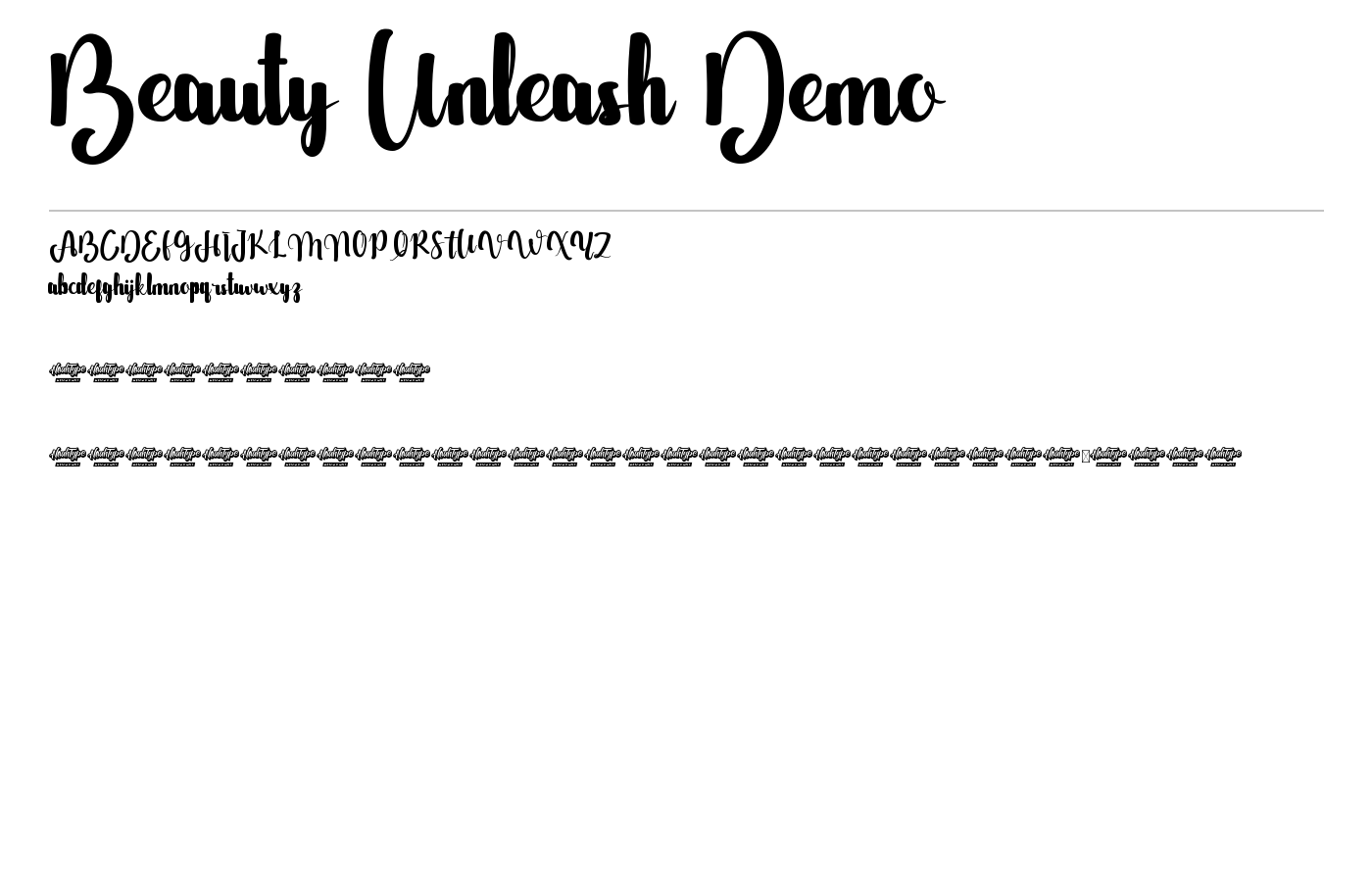
Beauty Unleash Demo is a bold, playful script font with a lively, hand-brushed feel. Its smooth, rounded strokes and casual letterforms make it perfect for adding a friendly and approachable touch to branding, invitations, and creative projects. This font shines in headlines and logos where a warm, expressive personality is needed.
Beauty Unleash Demo Font
About Beauty Unleash Demo Font
| Font family | Beauty Unleash Demo Font |
| Designer | Shalsha & Sarah SP |